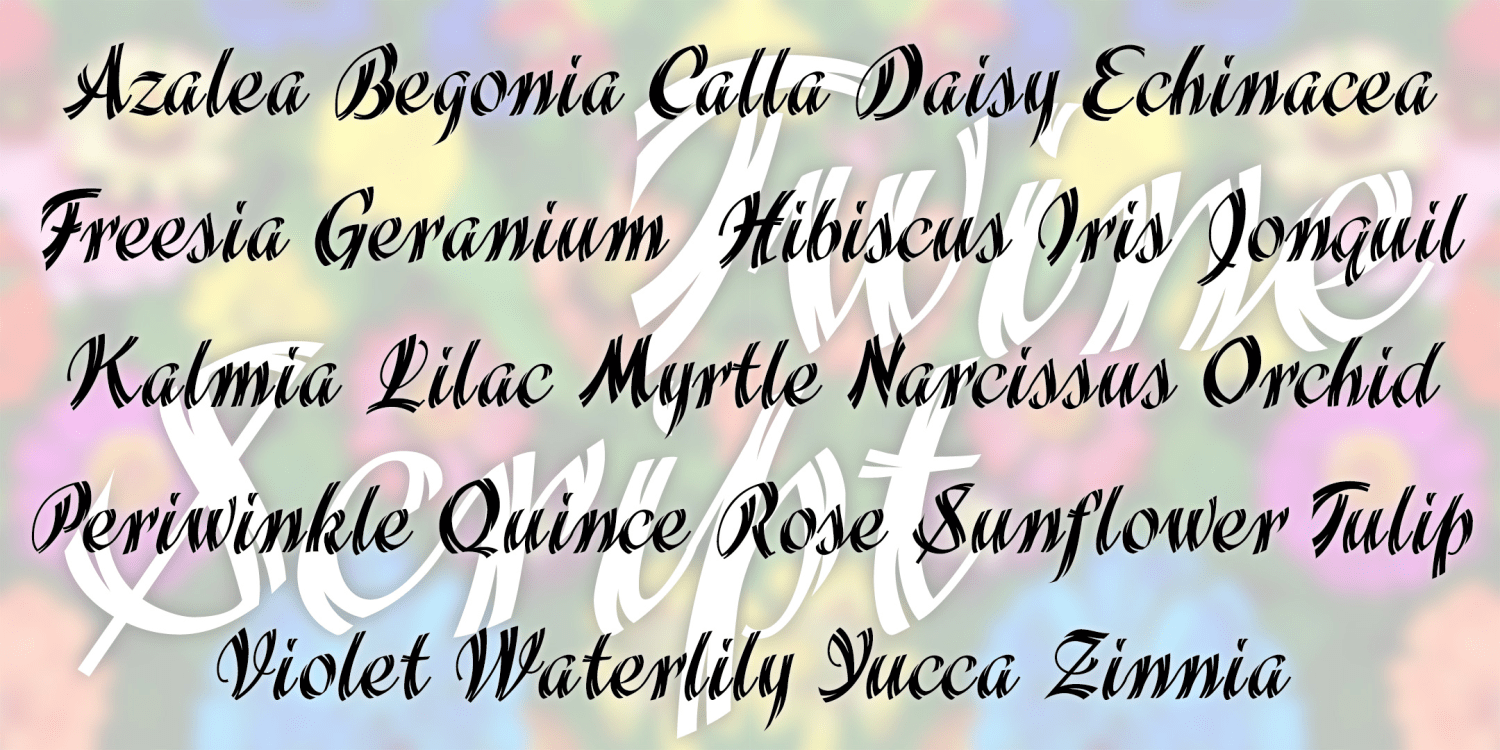
Twine Script
TWINE SCRIPT is a bold and stylish cursive font with a unique feature: “split ends” that give it a light and energetic twinkle! TWINE SCRIPT was inspired by examples in a 1930s Speedball lettering guide by Ross F. George who inspired so many people’s love of lettering.
The Twine Script font family includes 347 glyphs.
Twine Script Regular by Harold's Fonts